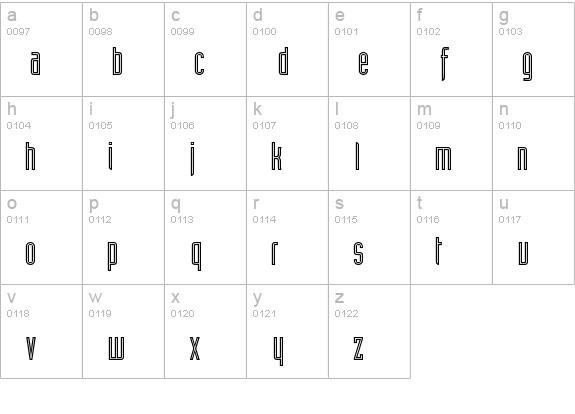
AssemblyOutlineSSK Font Details
AssemblyOutlineSSK font is a modern and stylish typeface that is perfect for creating eye-catching designs. This font features a unique outline style that adds a touch of sophistication to any project. Whether you are designing posters, logos, or invitations, AssemblyOutlineSSK font is sure to make a statement. What sets AssemblyOutlineSSK font apart is that it is available for free download at FontsMarket.com. This means you can easily access this versatile font and use it in your personal and commercial projects without any cost. With its clean lines and contemporary look, AssemblyOutlineSSK font is a must-have addition to your font collection. Don't miss out on the opportunity to enhance your designs with the modern and elegant AssemblyOutlineSSK font. Download it for free today and start creating stunning visuals that will captivate your audience.